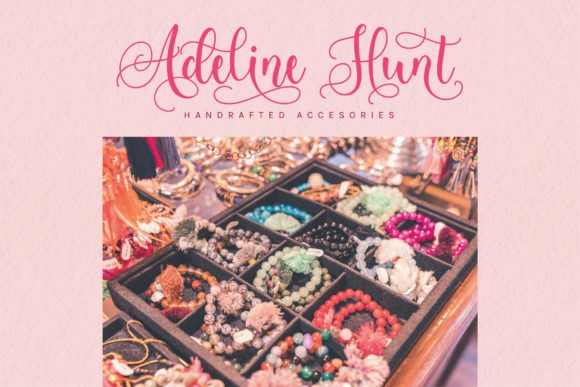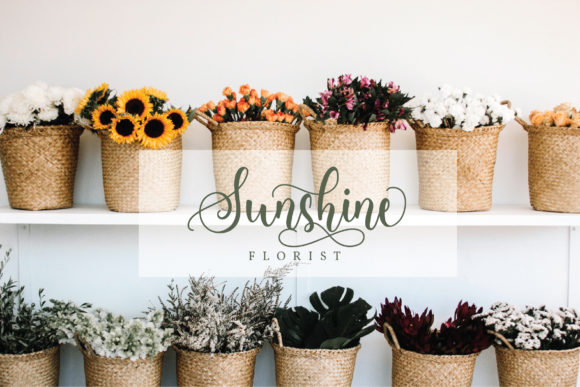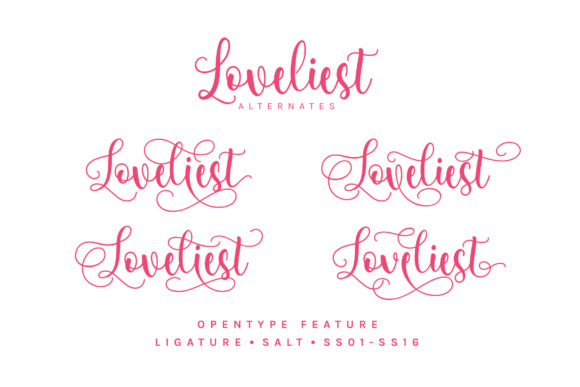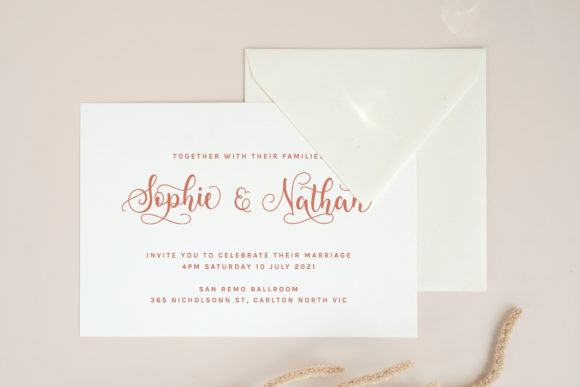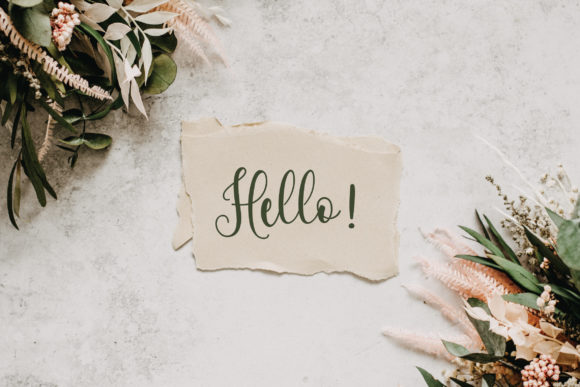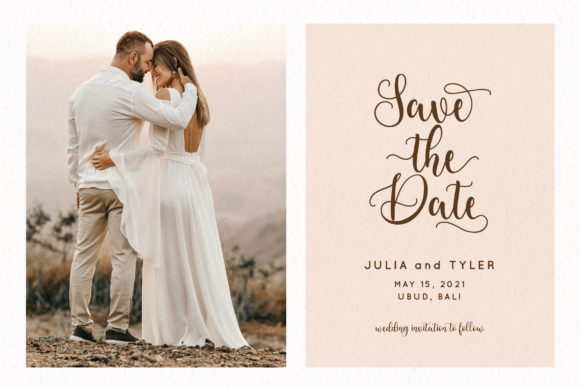
Introduction to Loveliest Font
As a designer, have you ever stumbled upon a font that captures the essence of your creative vision? For me, that moment came when I discovered the Loveliest Font. Its romantic and sweet calligraphy style transported me to a world of elegance and sophistication, and I knew I had to share it with fellow creatives.
With its PUA-encoded characters and glyphs, the Loveliest Font is a design resource that opens up endless possibilities for high-quality projects. Whether you’re working on a wedding invitation, a luxury branding project, or a creative campaign, this font is sure to add a touch of luxury and sophistication. And the best part? You can access all of its amazing features with ease, making it a valuable addition to any designer’s toolkit.
Whether you’re looking for a free download or a premium design resource, the Loveliest Font is a must-have for any creative project. Its transparent background and high-quality design make it perfect for designers who want to take their work to the next level.
Key Features of Loveliest Font
- High-quality design resource perfect for creative projects, including invitations, posters, and social media graphics.
- Features a transparent background, allowing for easy customization and blending with other design elements.
- Available in a range of sizes, from 12pt to 72pt, making it suitable for a variety of design applications.
- Unique, hand-drawn design with a touch of elegance and sophistication, making it perfect for weddings, baby showers, and other special events.
Honest Review: Loveliest Font
As a designer, I’m always on the lookout for high-quality design resources that can elevate my creative projects. Recently, I stumbled upon the Loveliest Font, and I’m excited to share my thoughts on this free download.
What works well: ✨ The Loveliest Font is incredibly versatile, making it perfect for a wide range of creative projects, from blog posts to social media graphics. The font’s elegant design and smooth lines make it a great choice for any project that requires a touch of sophistication. Additionally, the transparent background allows for easy layering and customization.
Some limitations: ⚠️ While the Loveliest Font is high-quality, it’s not without its limitations. The font family is relatively small, and there are no bold or italic variations available. This may be a concern for designers who require a more extensive font library.
Overall, I’m impressed with the Loveliest Font, and I appreciate its potential to enhance my design projects. However, I do wish it had a more extensive font family to accommodate a wider range of design needs.
Tips for Getting the Most Out of Loveliest Font
Use Loveliest Font on a transparent background to create a beautiful and modern design. Experiment with different font sizes and styles to add creativity to your project.
Loveliest Font is perfect for creating invitations, business cards, and social media graphics. Its high-quality design makes it ideal for various creative projects, including wedding invitations, logo designs, and more.